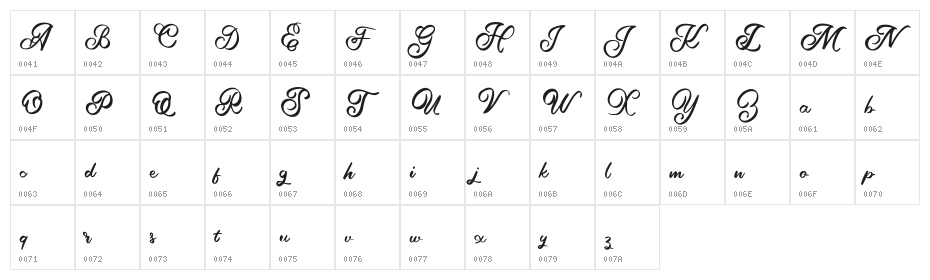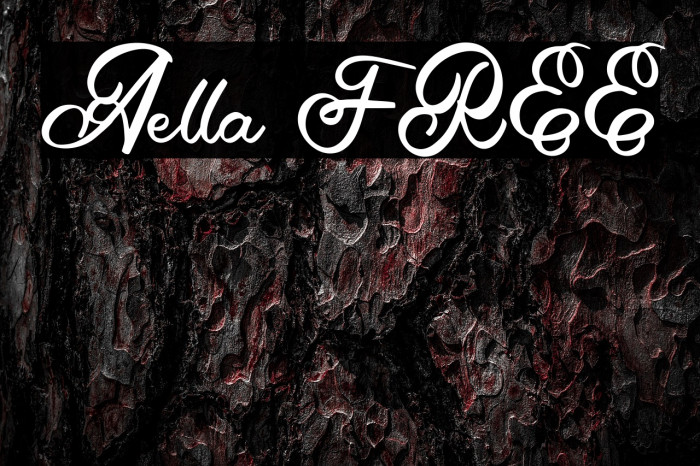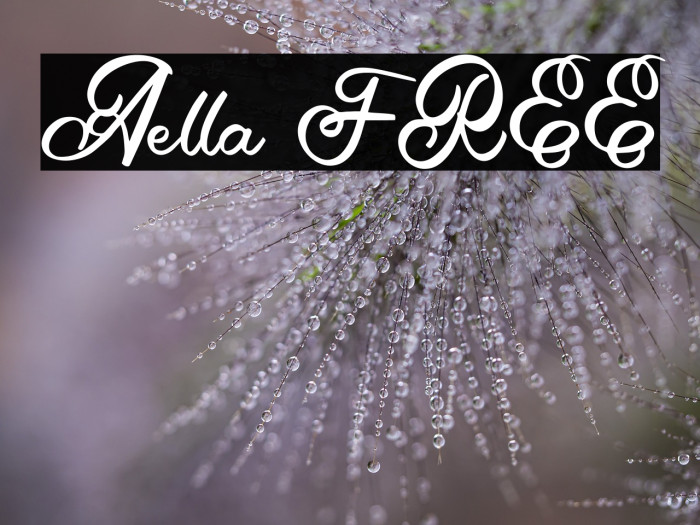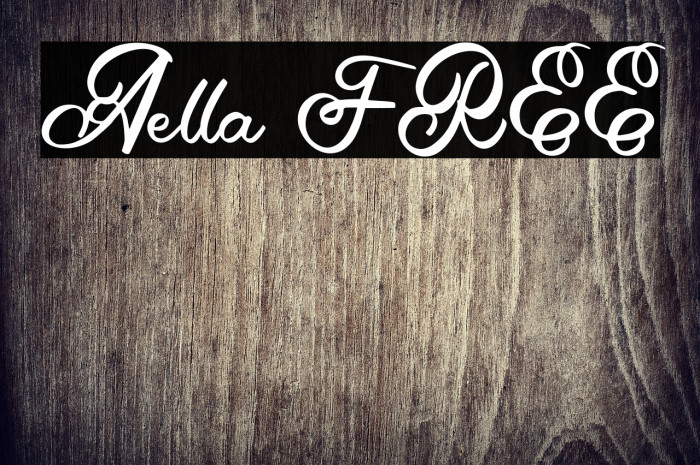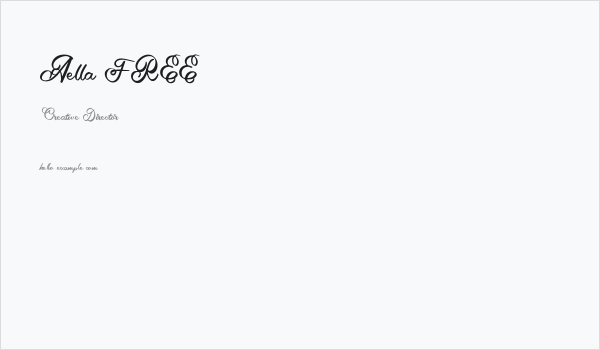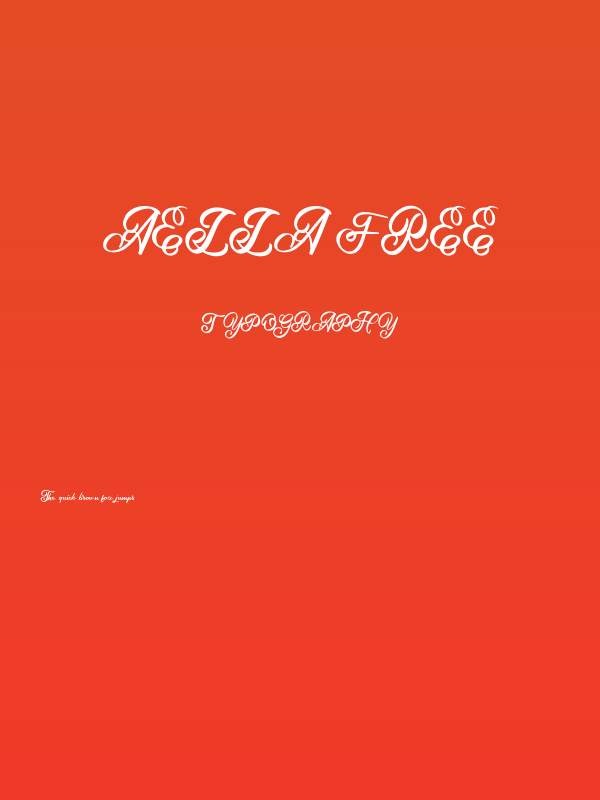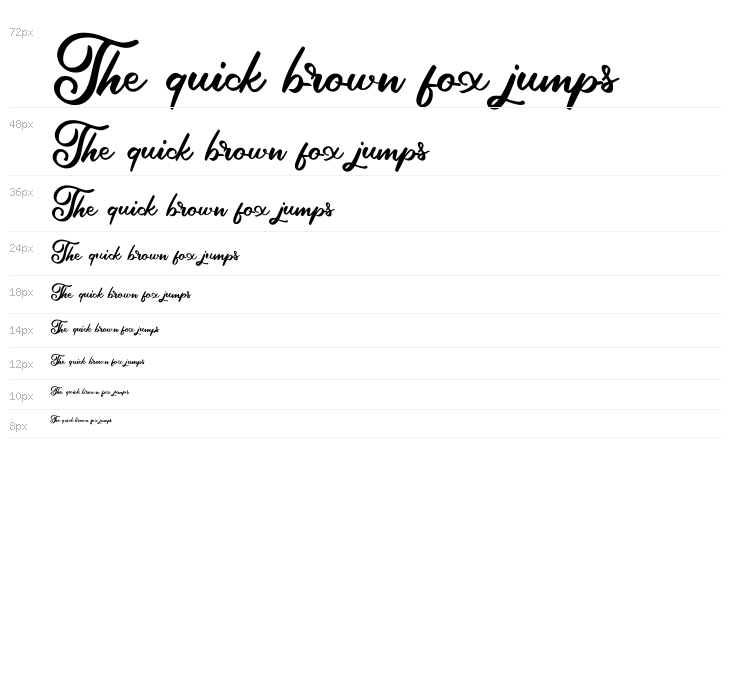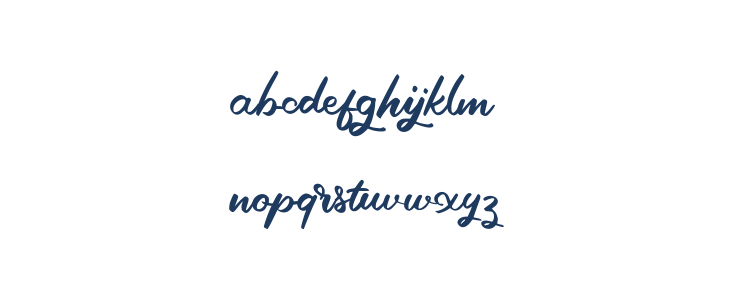
Aella FREE Font
Aella FREE Description
This elegant script font features flowing, interconnected letters that exude a sense of sophistication and grace. The uppercase letters are ornate, with intricate loops and swirls that add a decorative flair. The lowercase letters maintain a smooth, cursive style, complementing the uppercase with a more understated elegance. This font is perfect for projects that require a touch of class and refinement, such as wedding invitations, formal event programs, or luxury branding. Its design is both timeless and versatile, making it suitable for a wide range of applications.
| Overall Style | Elegant |
| Use Case | Logos, Invitations, Decorative Text |
| Proposed Projects | Ideal for wedding invitations, formal event programs, luxury branding, and elegant stationery. |